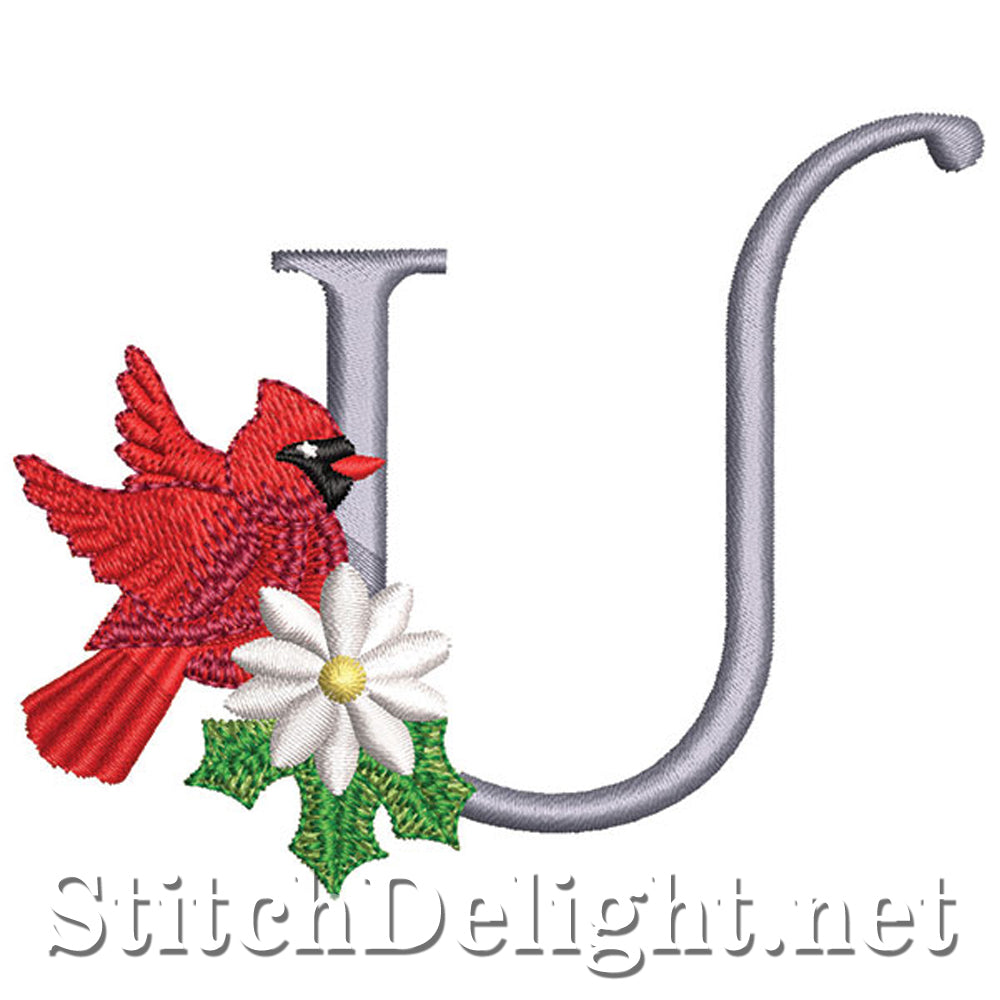
SDS1241 Cardinal Font U
Personalize your project with this stylish monogram set with pretty Cardinals- BX version for Embrilliance software included in the FULL font purchase only, not for single letters - Letter height is 2.7 inch / 60mm